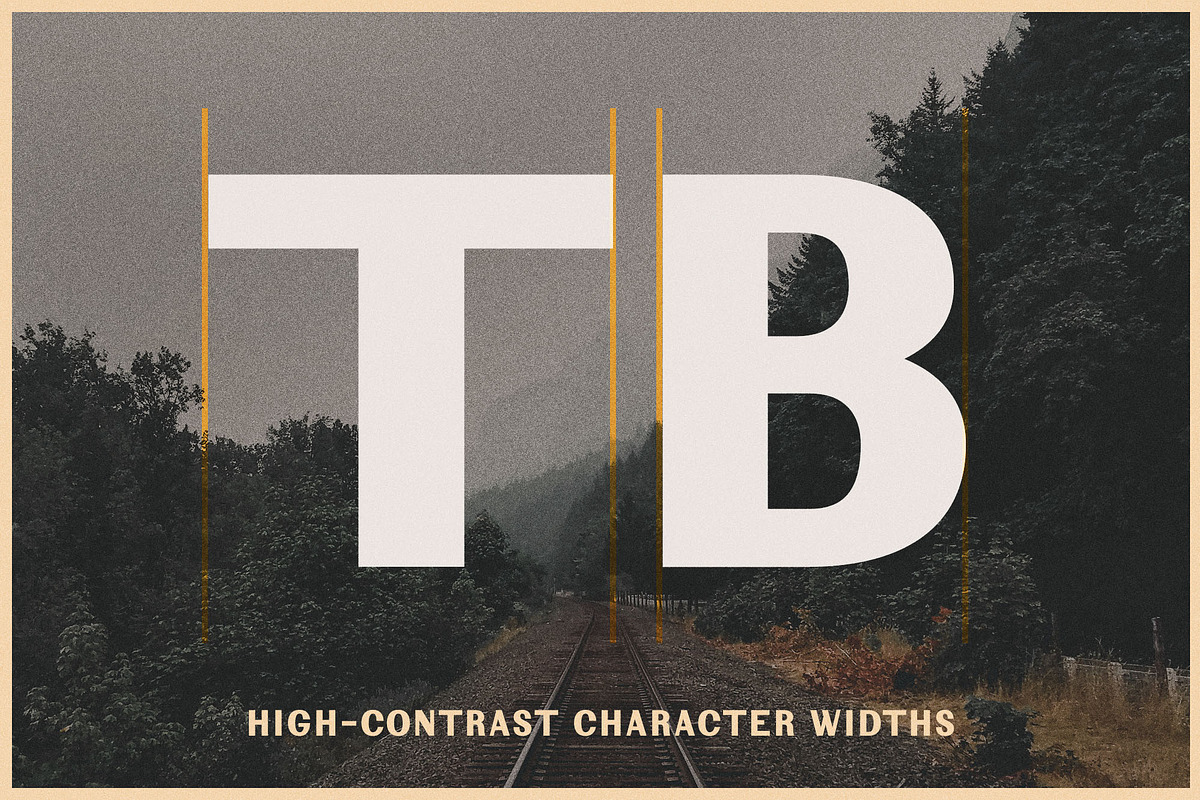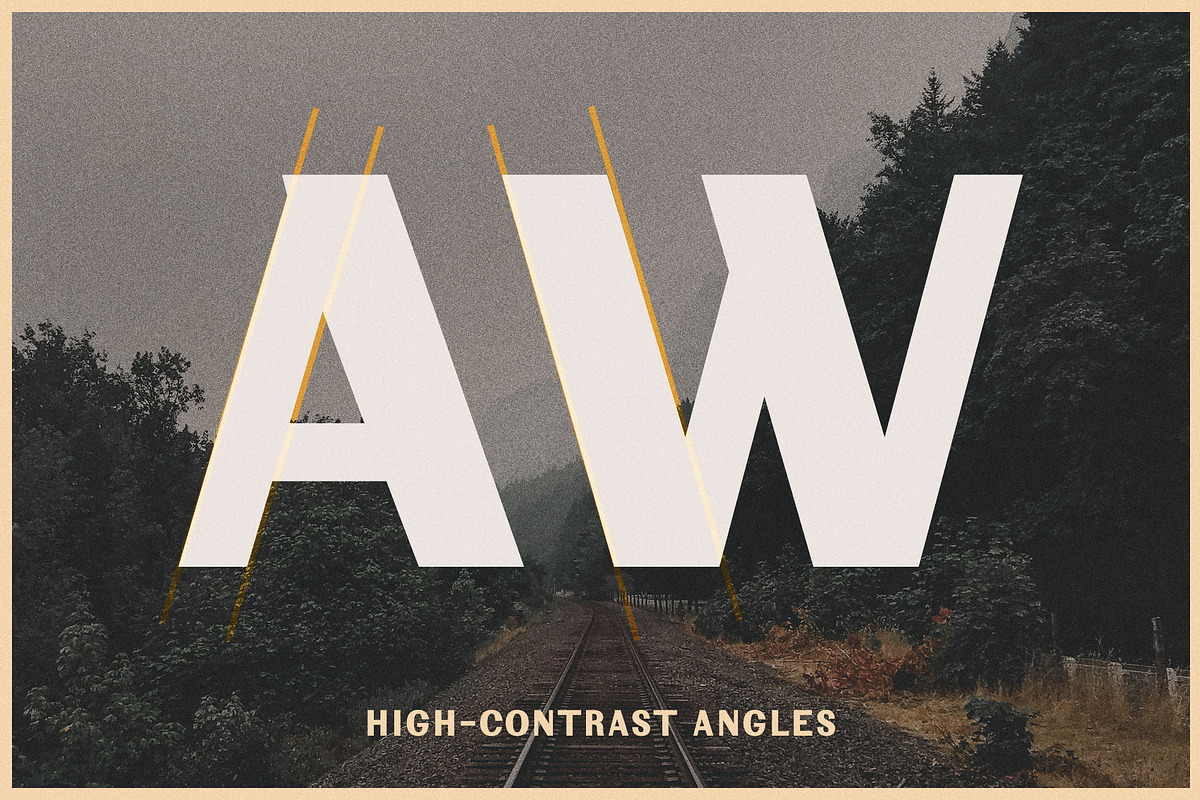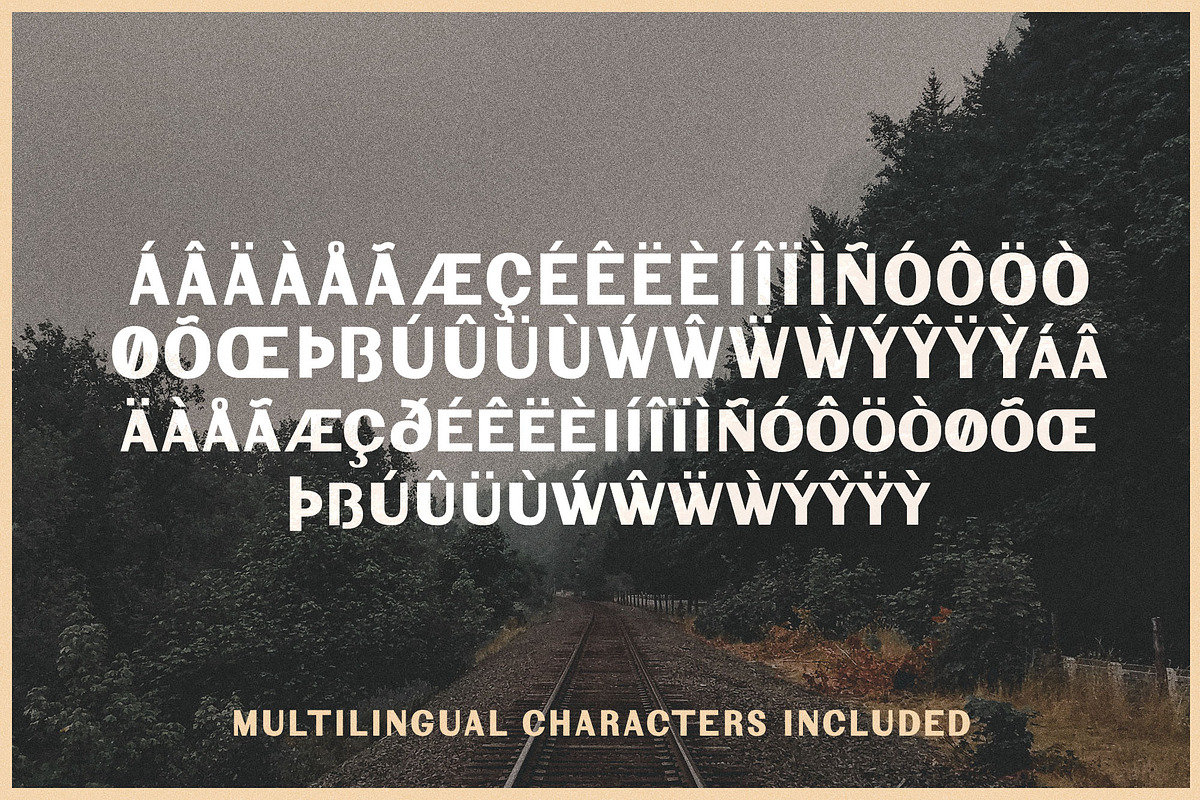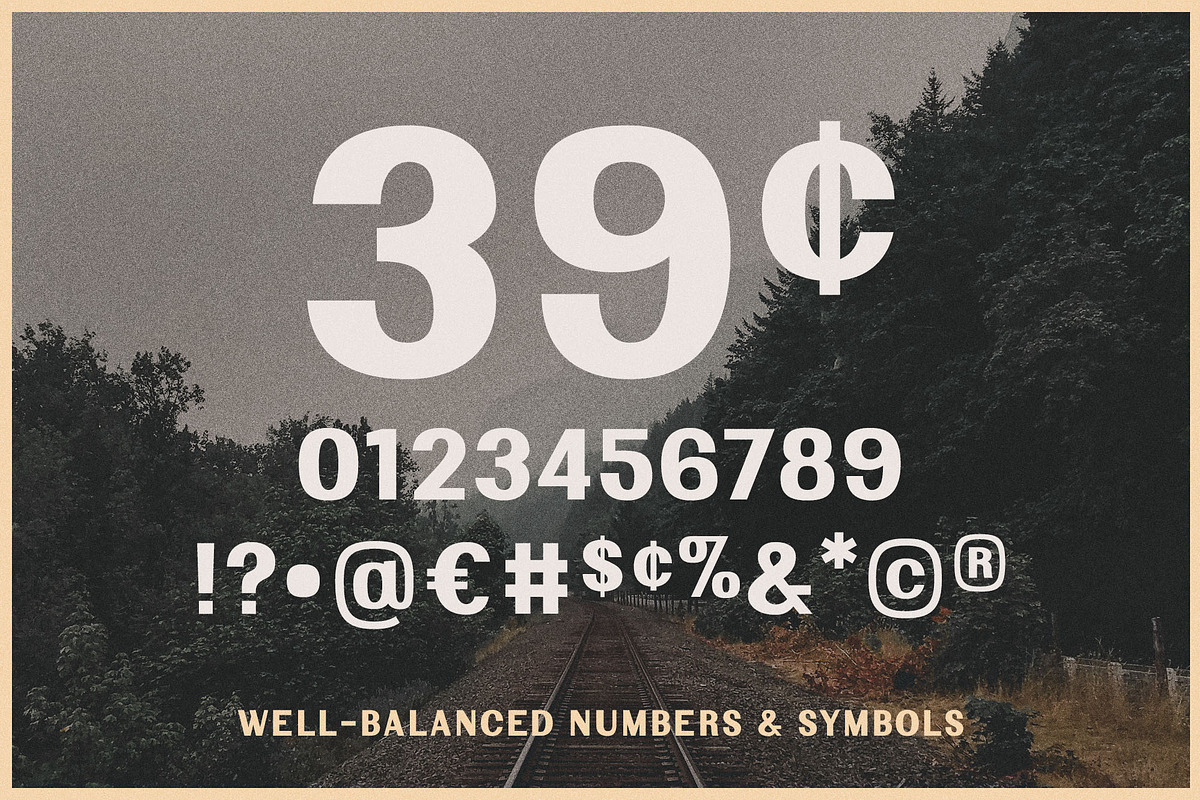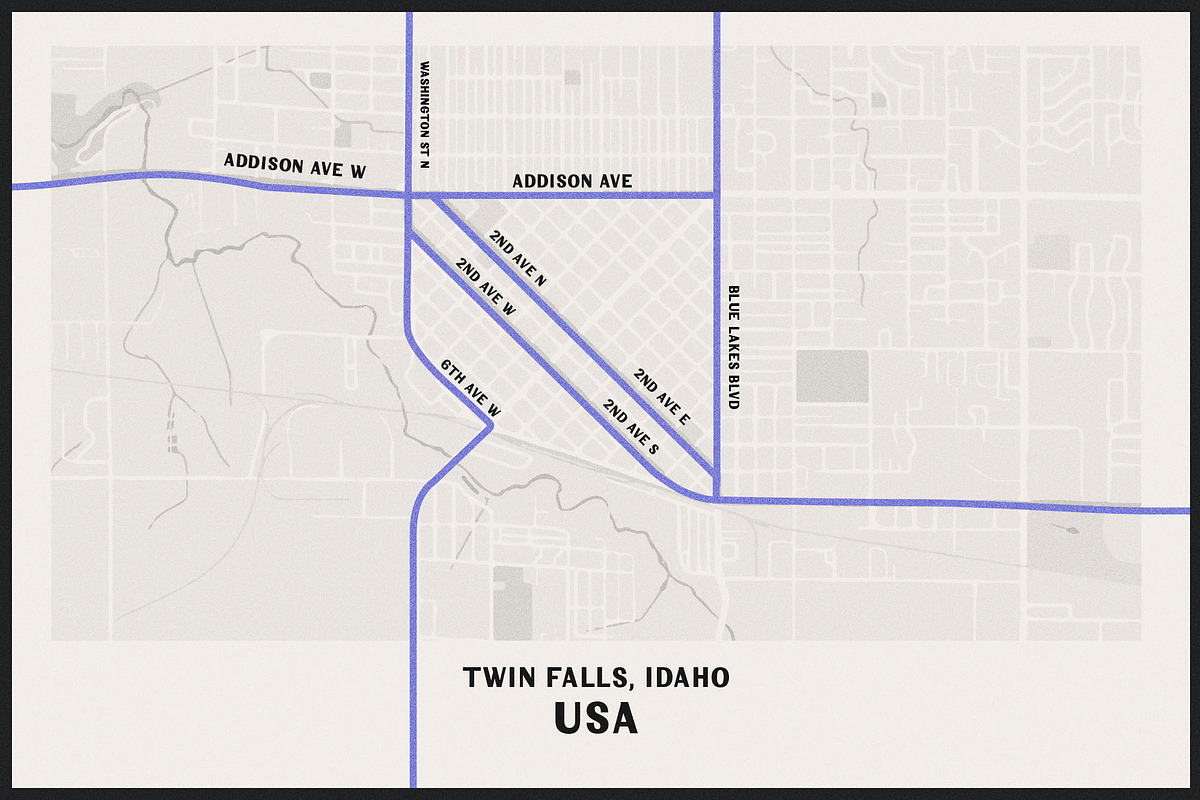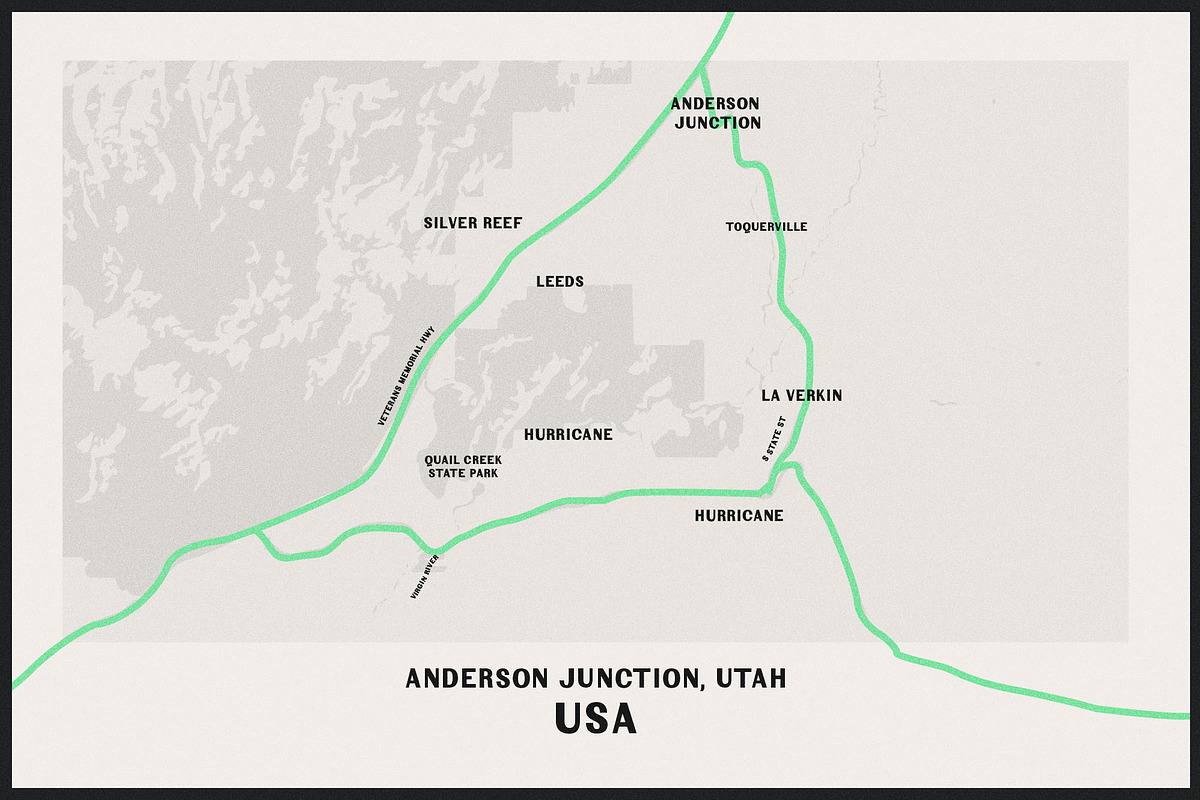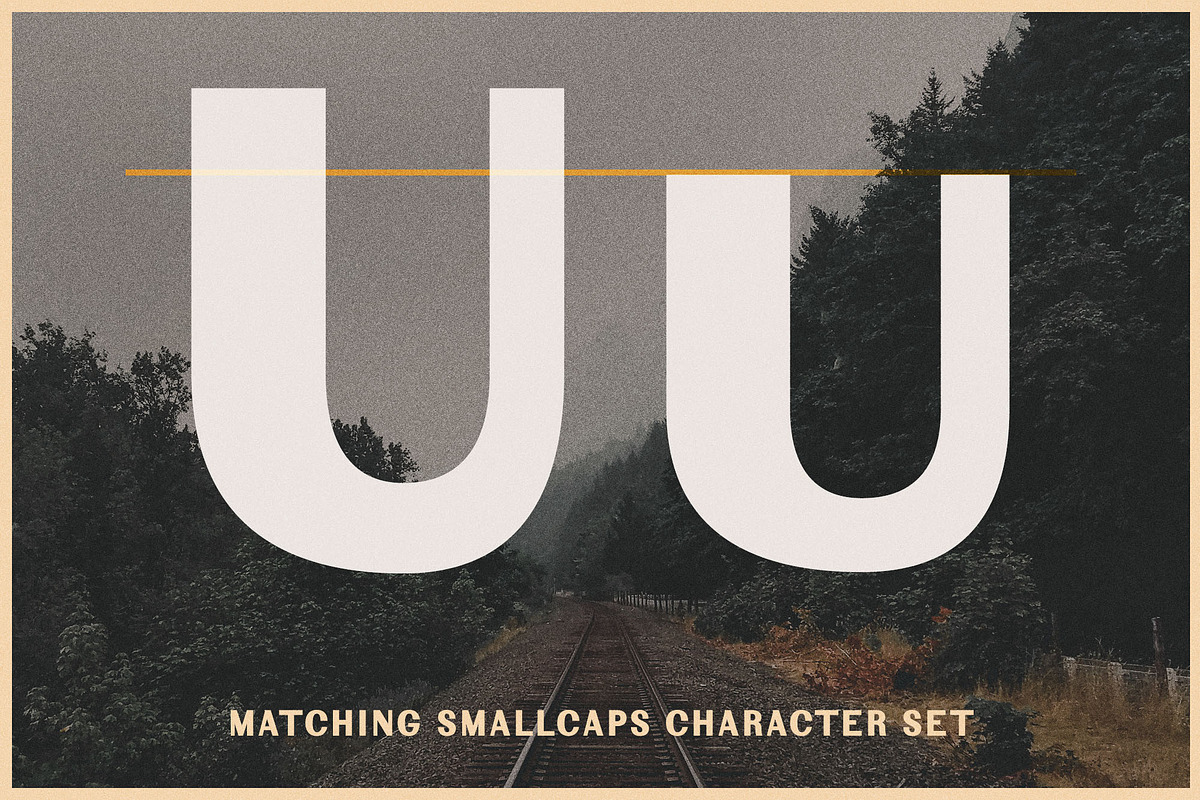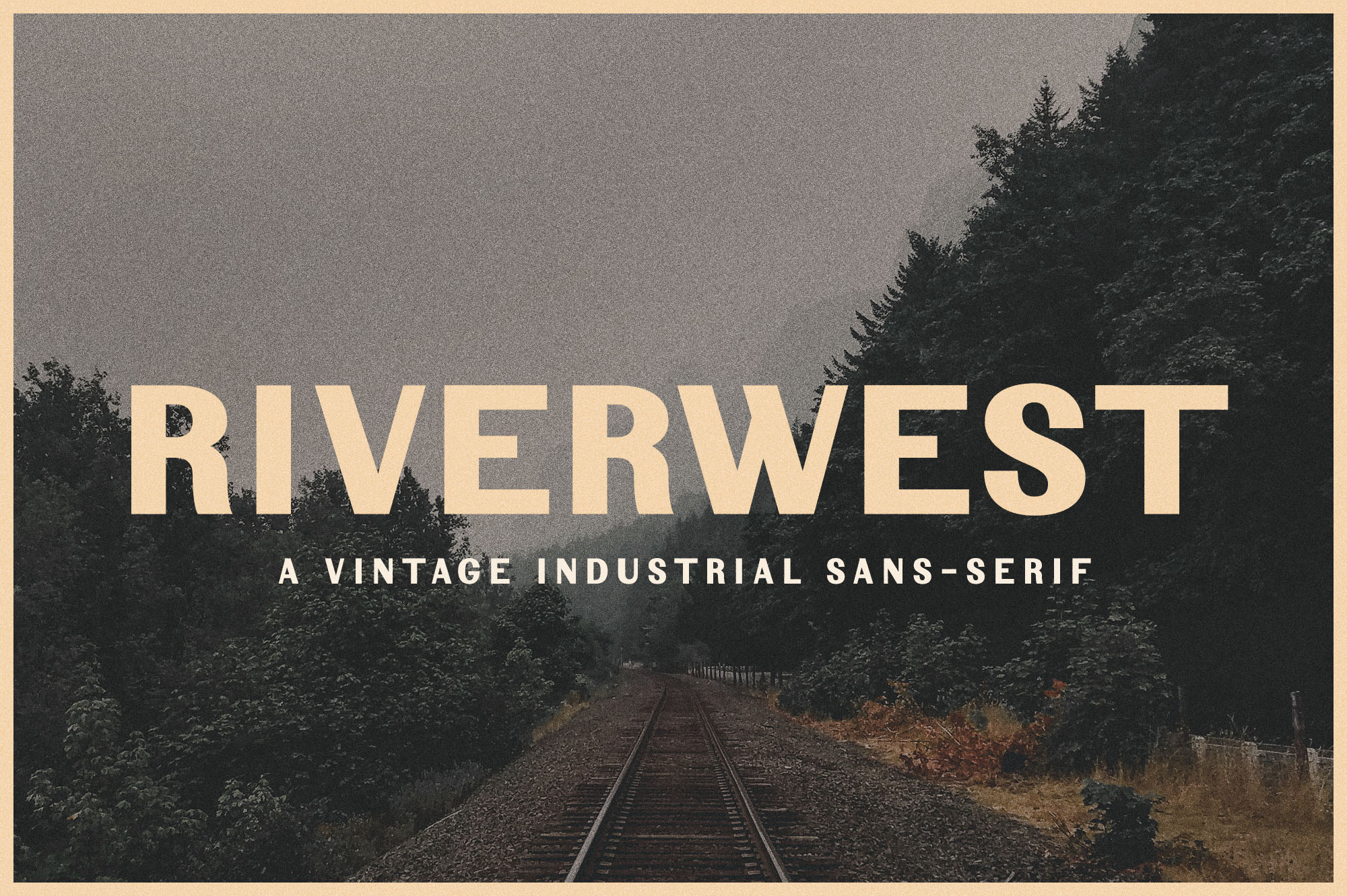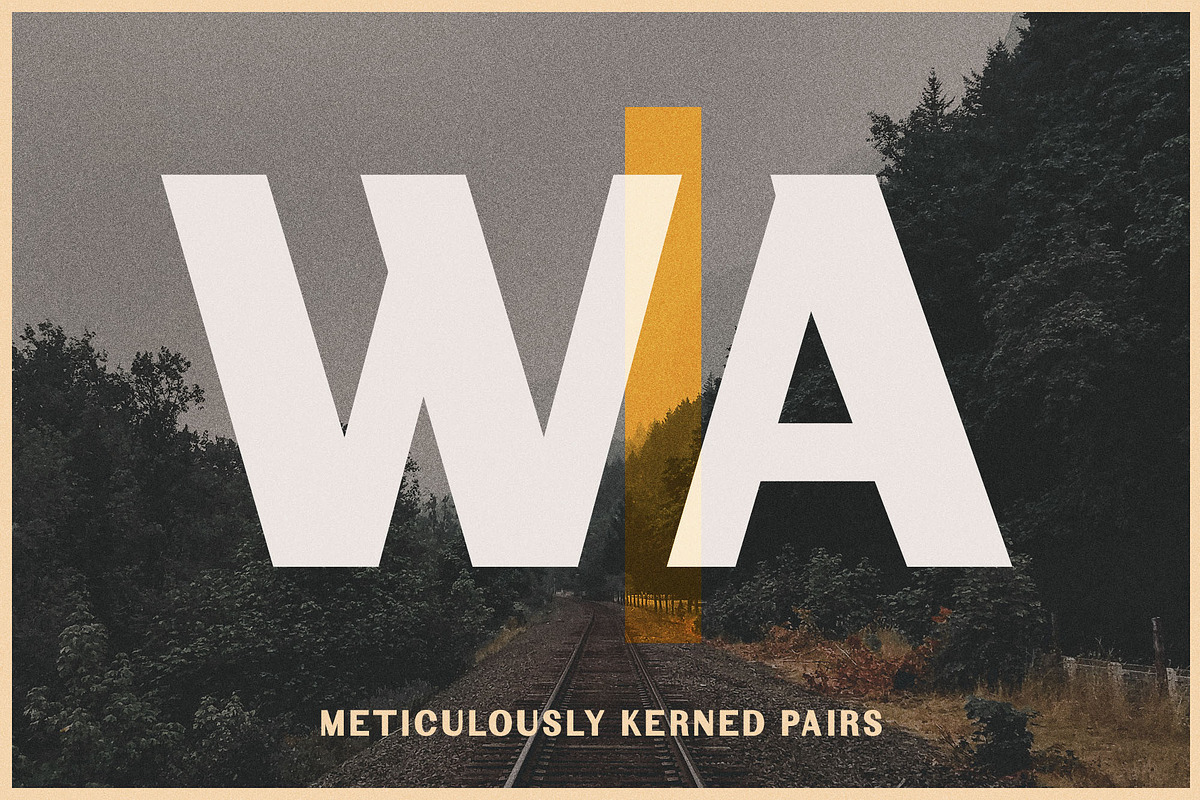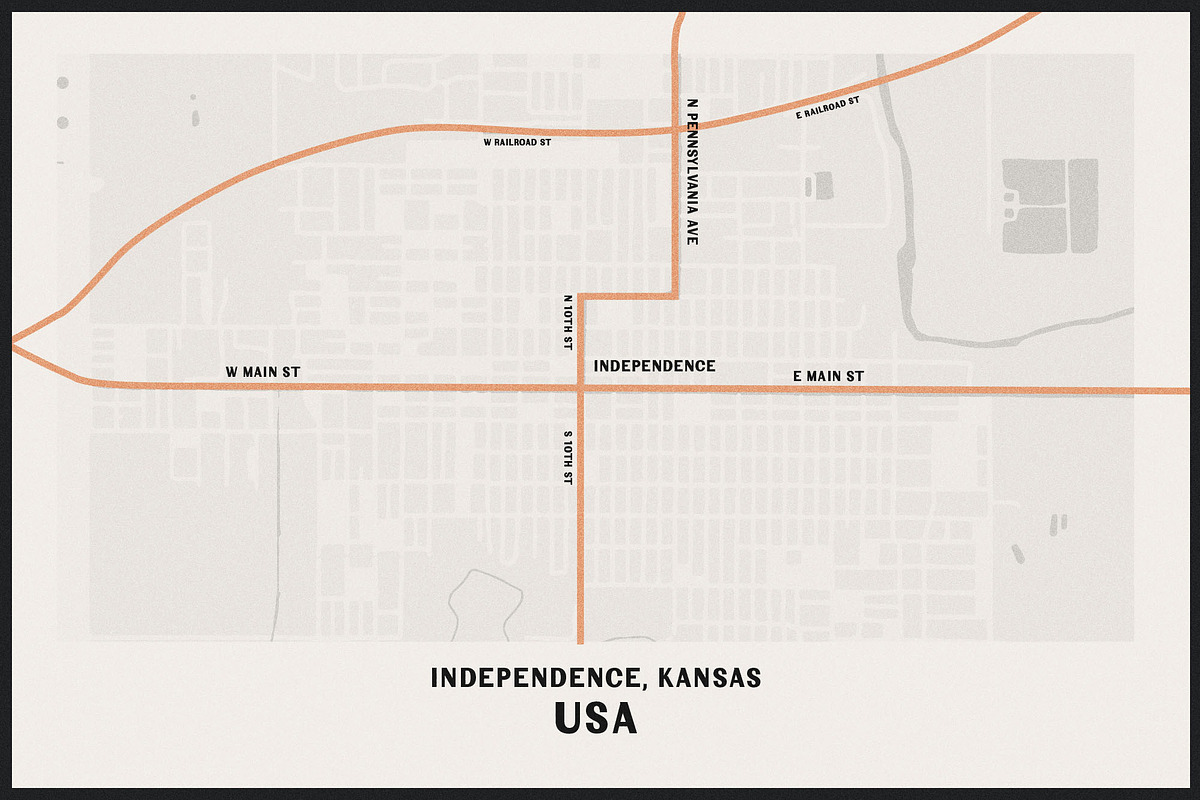
Riverwest Vintage Industrial Font
Riverwest is an original sans serif typeface that was inspired by vintage font styles found in 19th century maps and posters. Its unusual characteristics make Riverwest a great typeface for creating antique designs as its industrial look captures that old letterpress printed vibe in an instant.
With its sharp number set and symbols, Riverwest can help you make beautiful map designs. Create vintage maps of old railroad and shipping routes, or even bring a vintage feel to modern map design!
Riverwest's vintage look is also paired with modern digital design standards including contemporary symbols, hinting, meticulous kerning, and multilingual characters.
Named for the time period when the United States expanded west of the Mississippi river, Riverwest captures the look and feel of the 1800's in a time when trains ruled travel, manufacturing fueled the economy, and the frontier shifted to the Pacific!